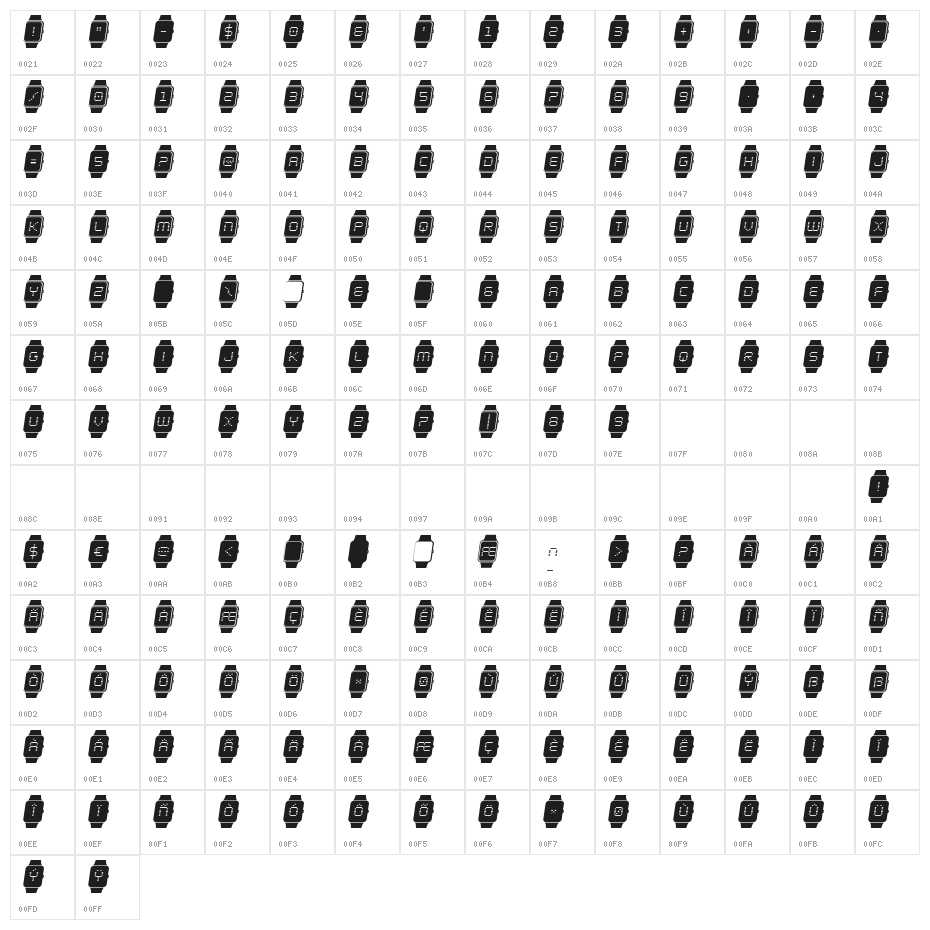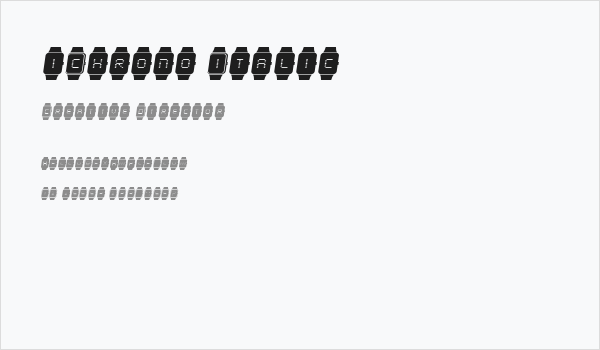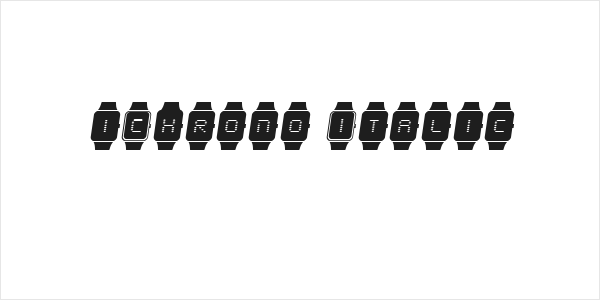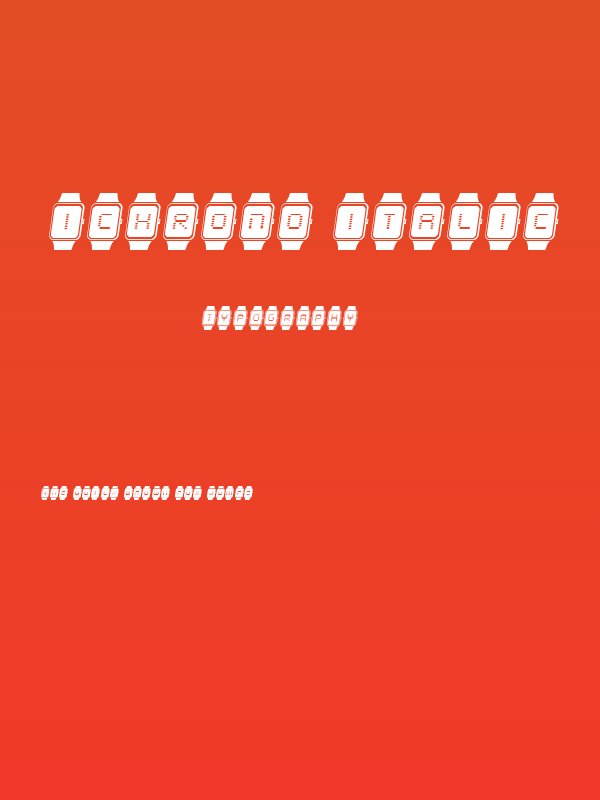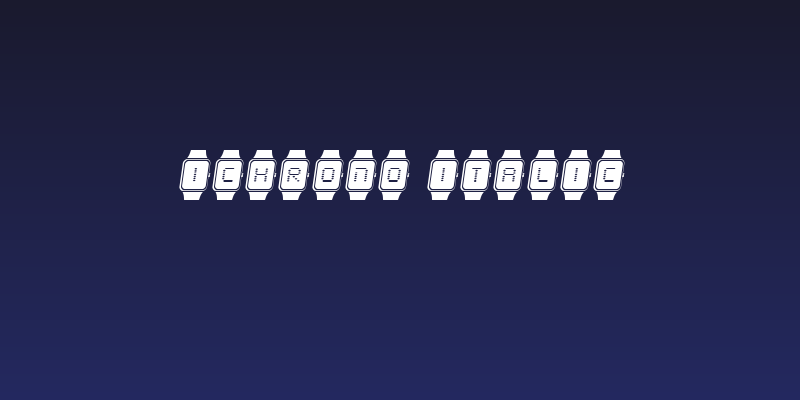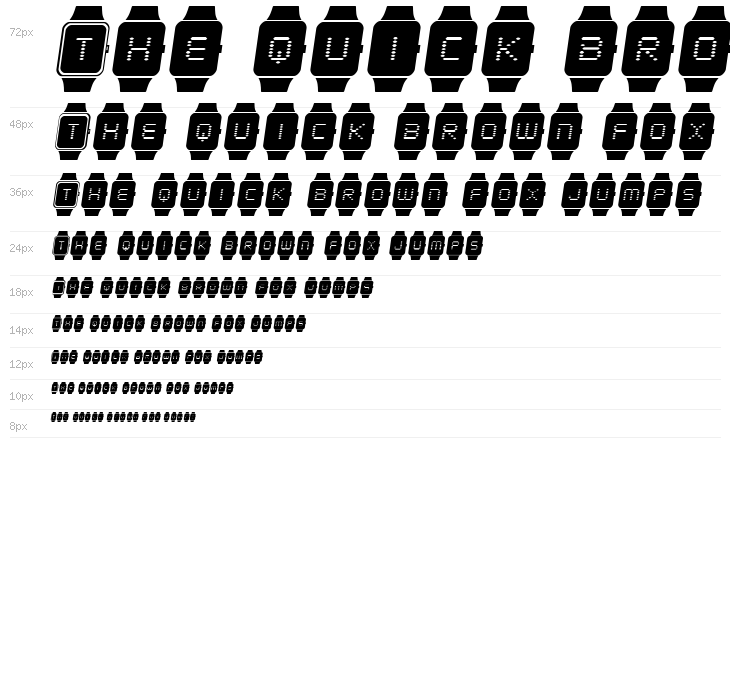
iChrono Italic Font
iChrono Italic Description
This font is a unique and modern design that mimics the appearance of digital watch displays. Each character is enclosed within a watch-like frame, giving it a distinct and futuristic look. The characters are composed of segmented lines, reminiscent of digital clock numerals, which adds to the technological and contemporary feel. The italic style gives the font a dynamic and forward-moving appearance, enhancing its modern aesthetic. This font is perfect for projects that aim to convey a sense of innovation, technology, or digital themes.
| Use Case | Logos, Headlines, Digital Interfaces |
| Proposed Projects | Ideal for tech-related branding, digital interfaces, futuristic designs, and innovative product packaging. |